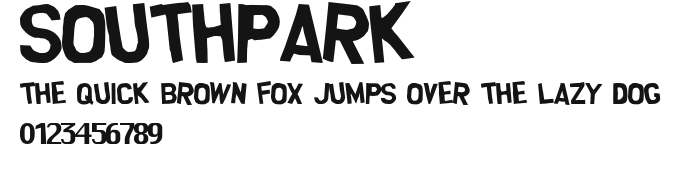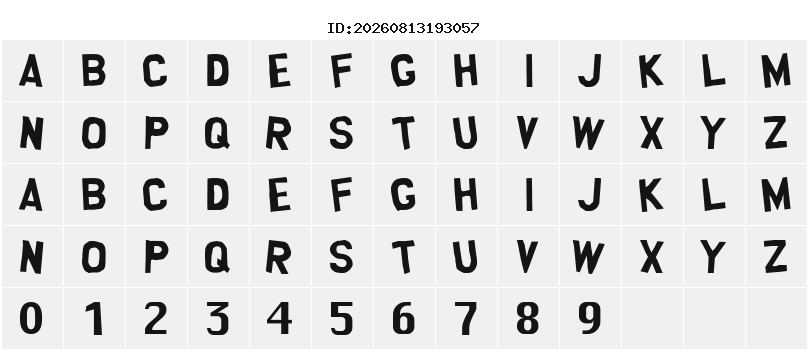
About southpark.ttf
southpark.ttf is a modern, elegant sans-serif font designed for ultimate readability and visual harmony. Perfect for branding, headlines, web design, and print materials.